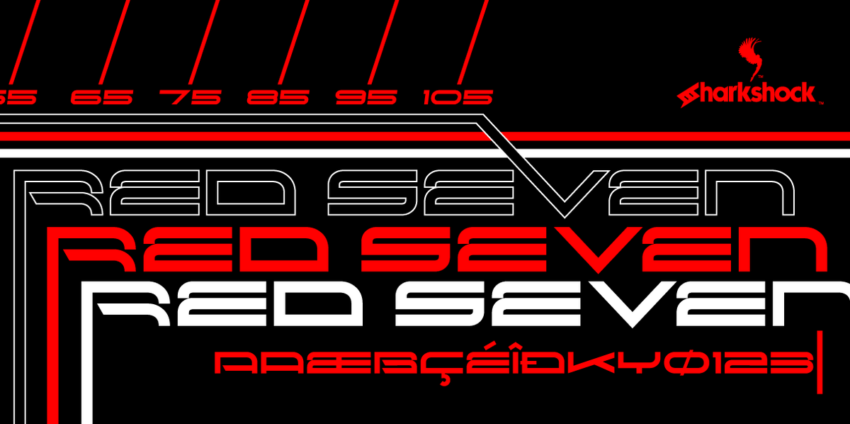
Introduction to Red Seven Font
Looking for a sharp typeface that can take you places.
How about one that can slice through a tomato can Red Seven is an edgy, futuristic display font that lends itself to lettering, titles, and logos.
Why Choose Red Seven Font?